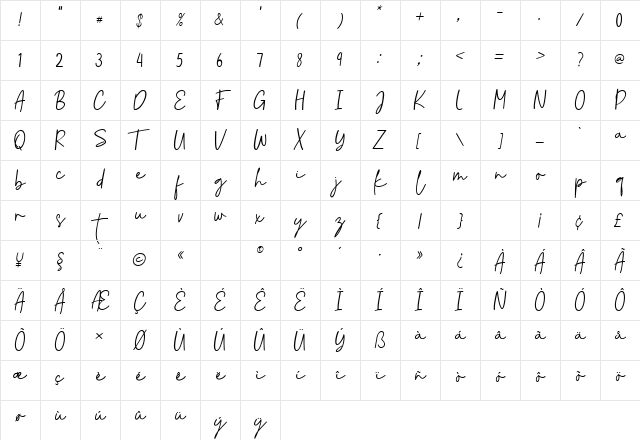
Harvest Bailey Script Regular Free Font
Harvest Bailey Script Regular
Design Context for Harvest Bailey Script
Harvest Bailey Script flows with the natural rhythm of handwritten lettering, making it ideal for designs that call for warmth and personal expression.
Font Pairing: Combine Harvest Bailey Script with a simple geometric sans for maximum contrast - the tension between flowing curves and clean structure is a classic typographic pairing.
Pro Tip: Use Harvest Bailey Script for short runs of text - names, titles, or taglines. Extended body copy in script faces tires the eye quickly.